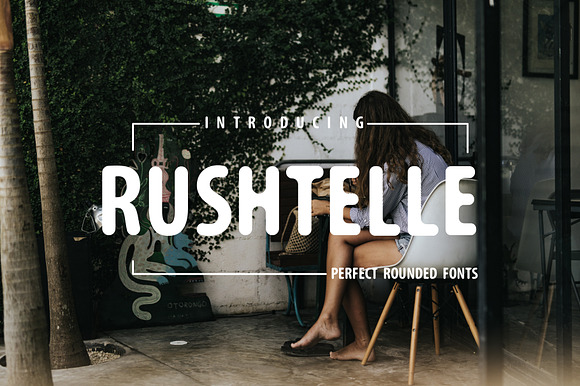
Rushtelle Font | Perfect Rounded
Rushtelle Perfect Rounded Fonts.
Create bold, perfect headlines and elegant designs. perfect look for logos, business cards, wedding invitations, quotes, advertisements, video title and more. Create something perfect with Rushtelle
Numerals And Punctuation
Why Rushtelle Font | Perfect Rounded is worth a look
Rushtelle Font | Perfect Rounded by Crump Hand fits naturally into Branding, posters, packaging, typography.